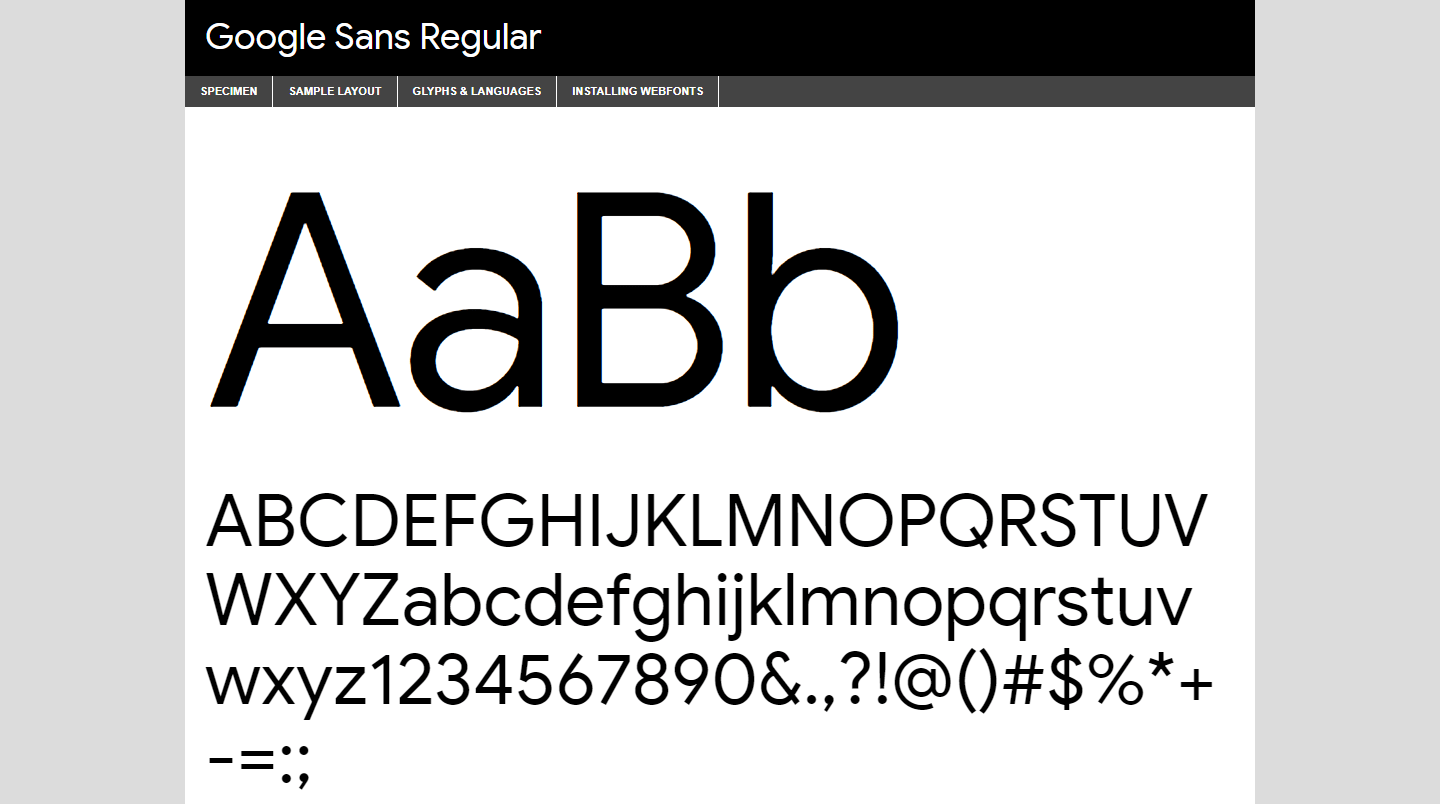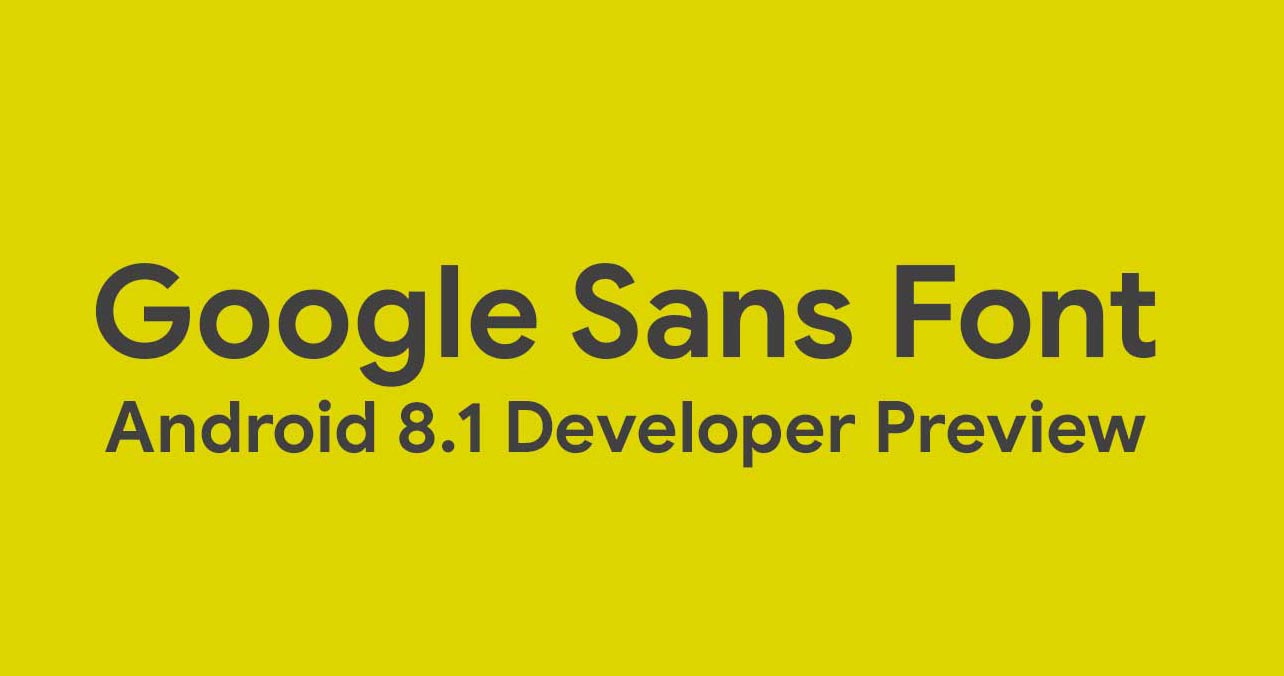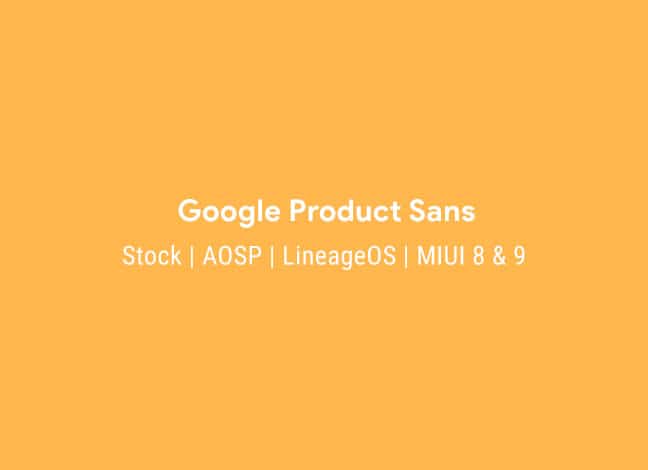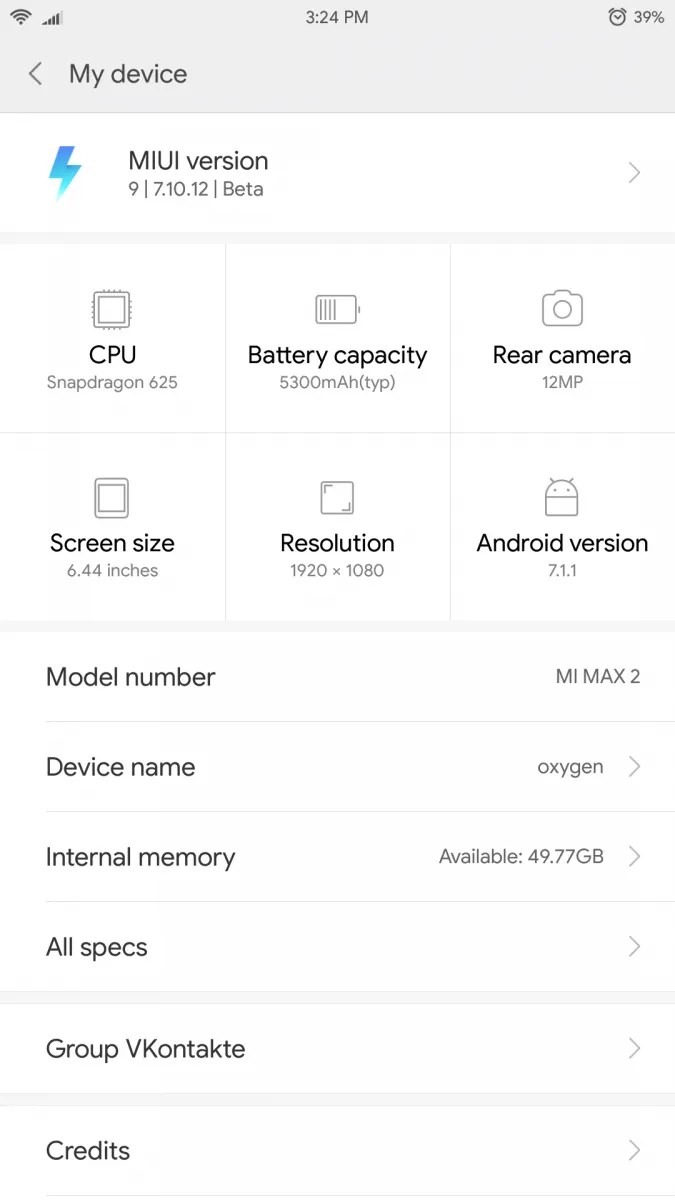
Google Product Sans Font For Samsung. In conjunction with the logo, google designers also created new typography. Gs text was introduced last year, with some previously spotting it on the google design page.
Now Google Introduced Its Own Font Called Product Sans With Android 8.1 Oreo.
Download google sans font ttf. A new mod brings the google pixel 2's product sans font from android 8.1 oreo developer preview to aosp, miui, lineageos and stock android based roms. What is logo google font.
It Replaced The Old Google Logo On September 1, 2015.
Here Is The Original And Updated Google Sans, Also Known As Product Sans, In.ttf Extension.
In Conjunction With The Logo, Google Designers Also Created New Typography.